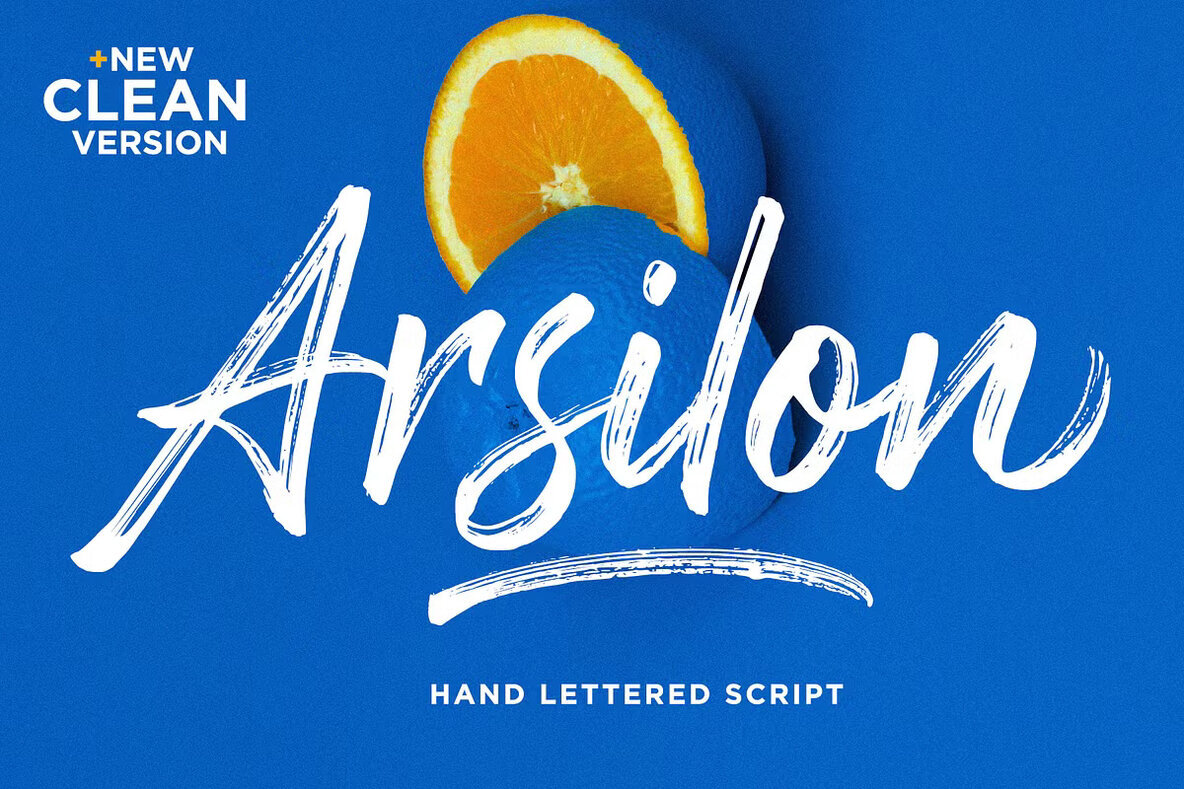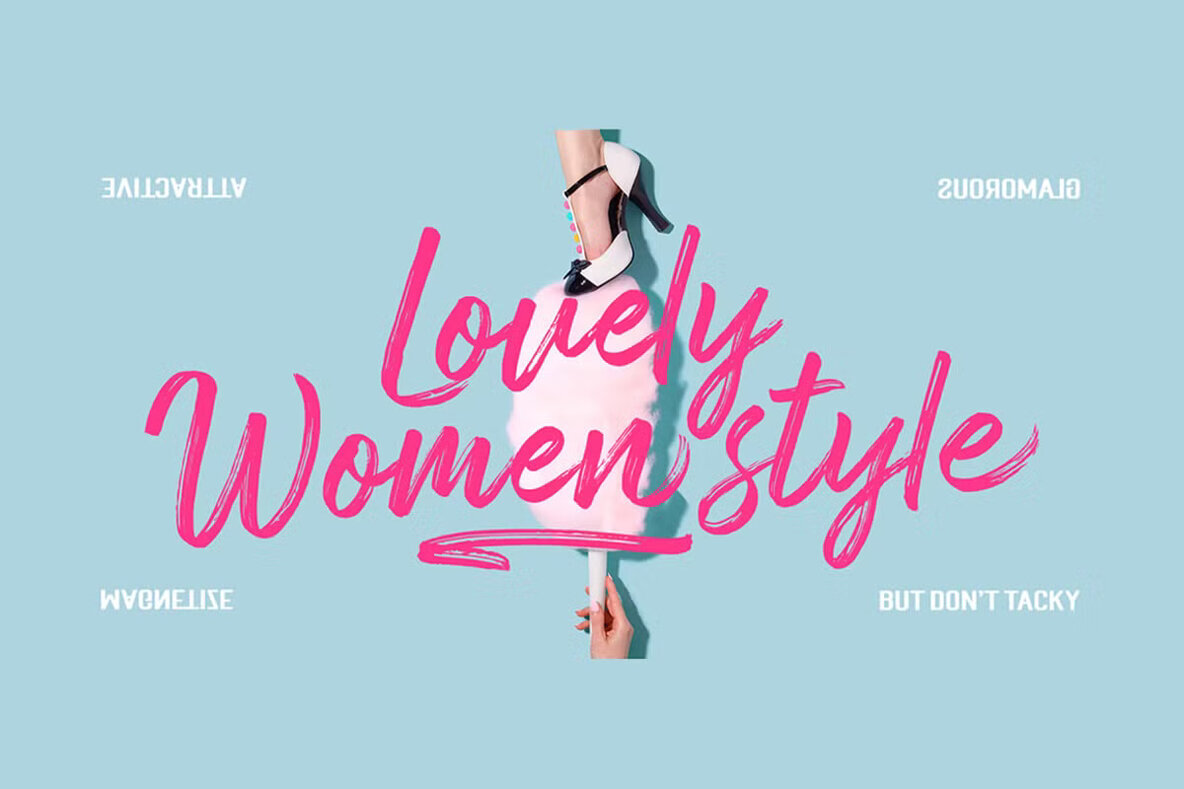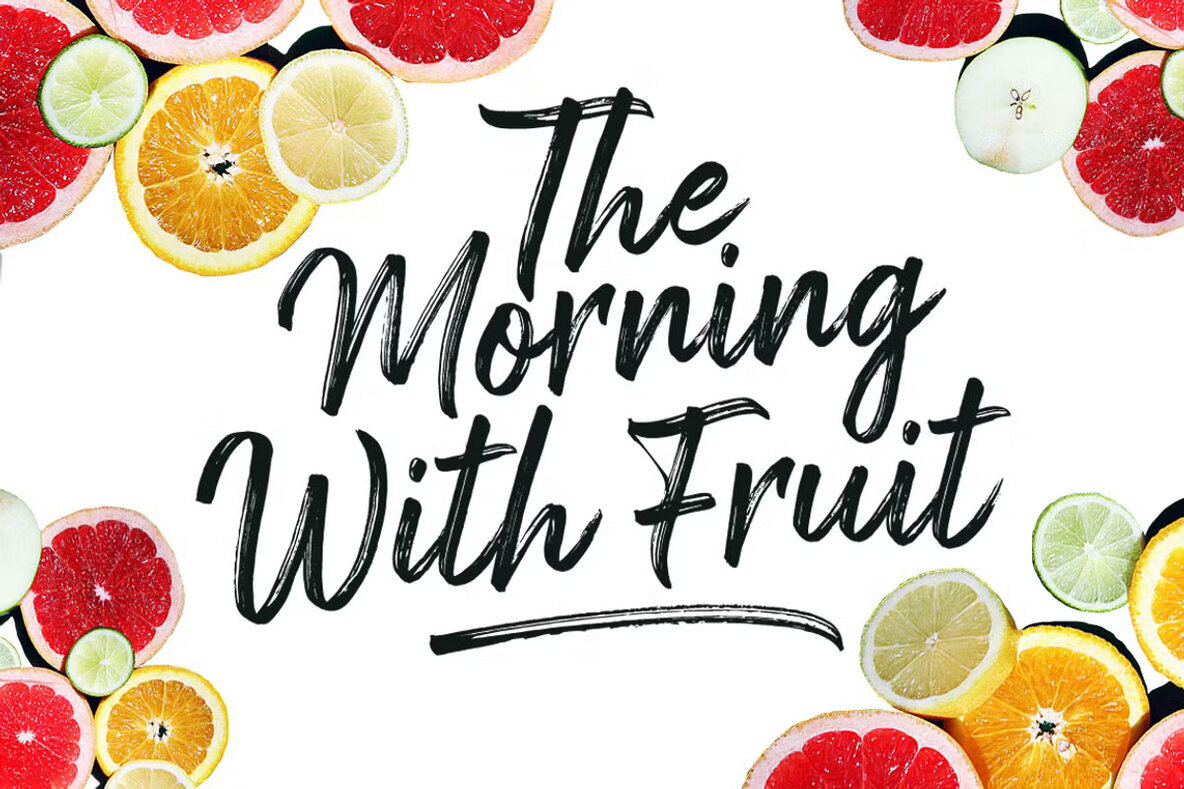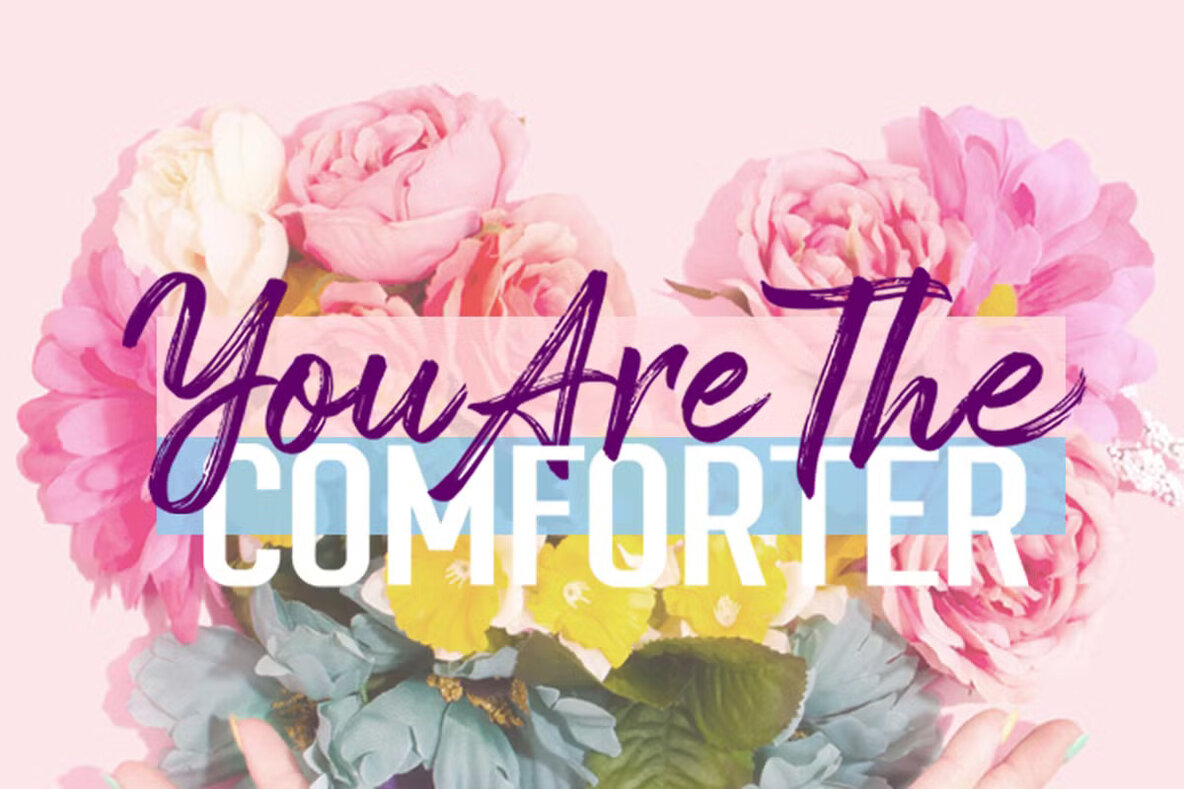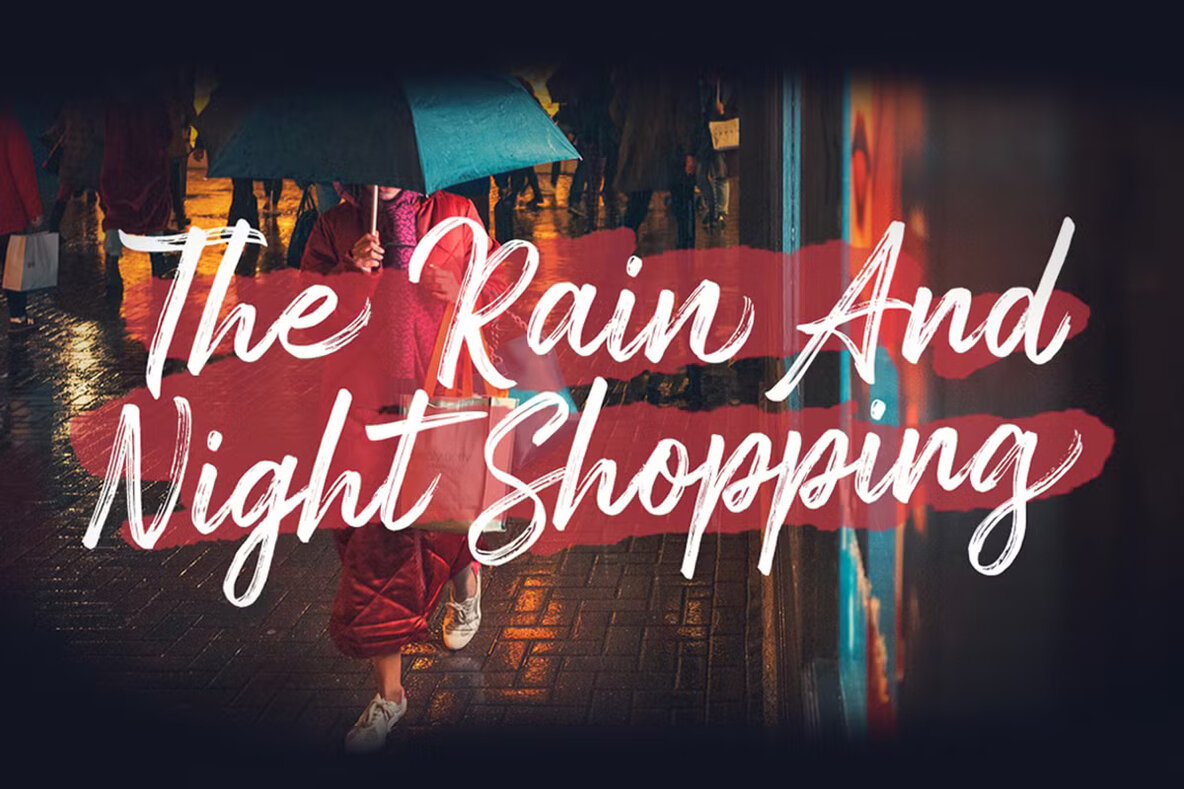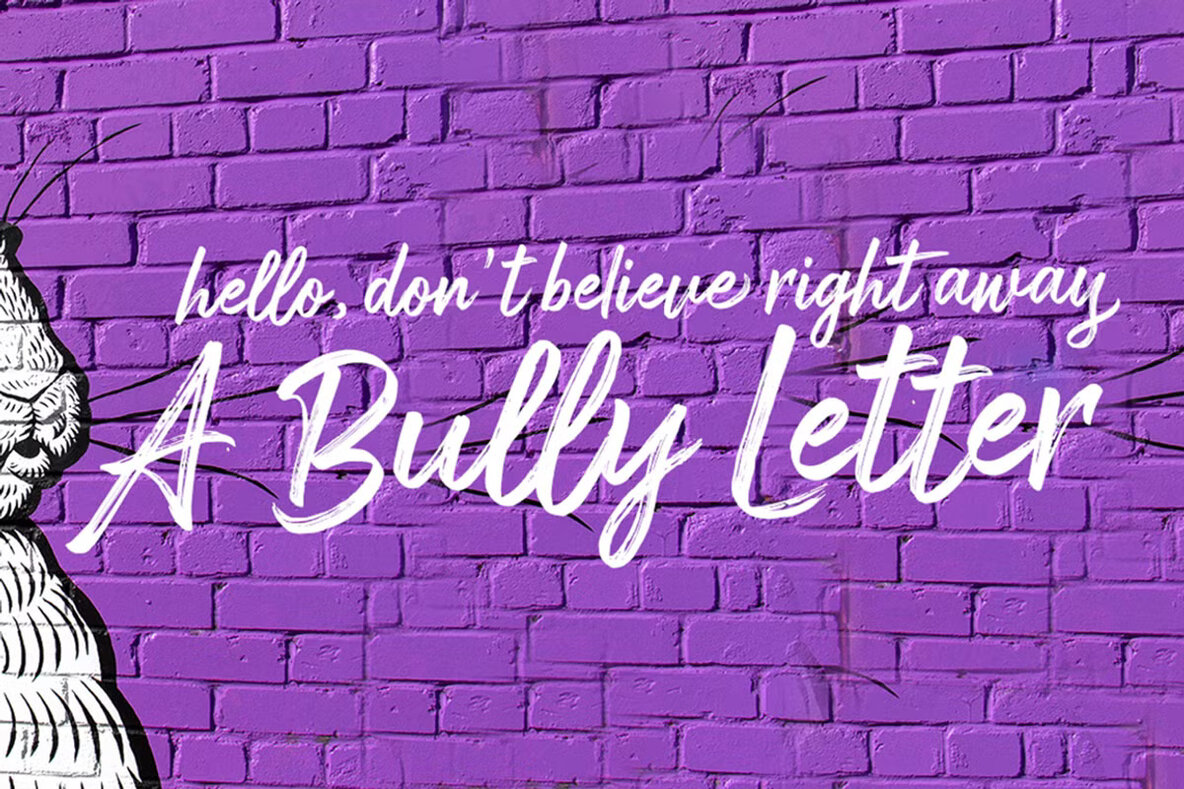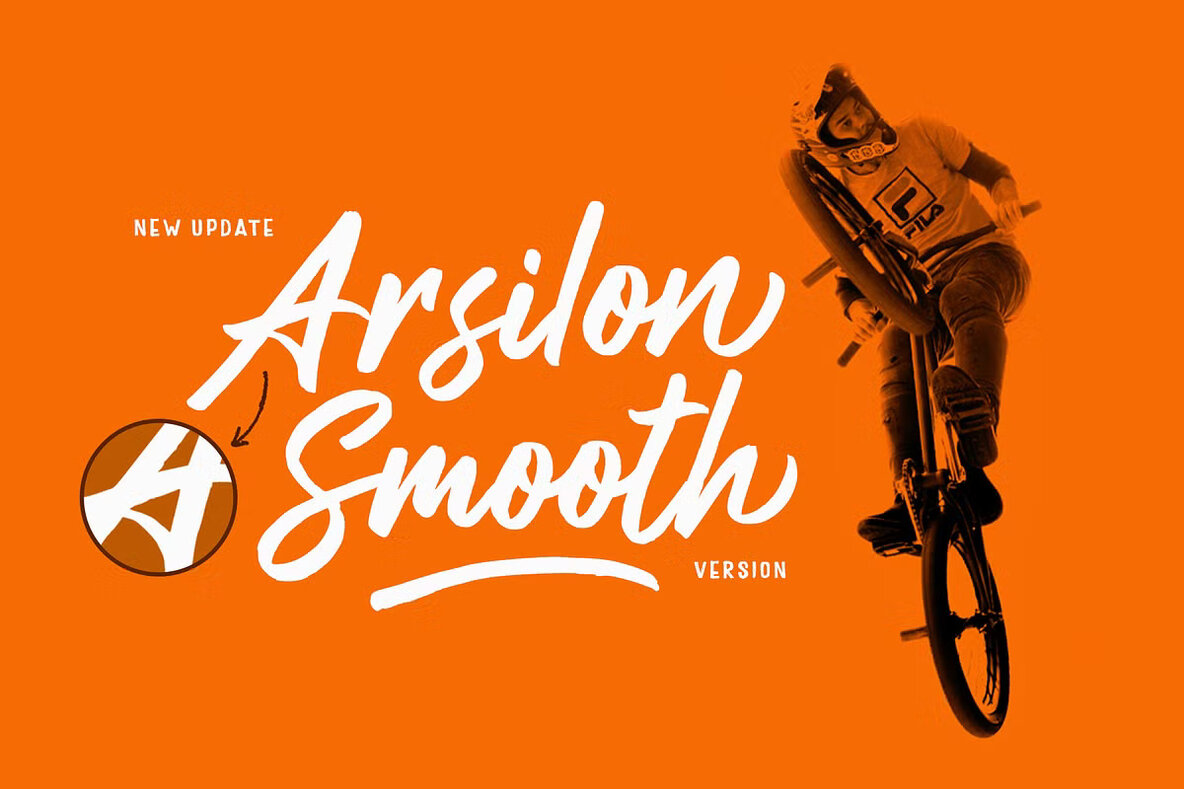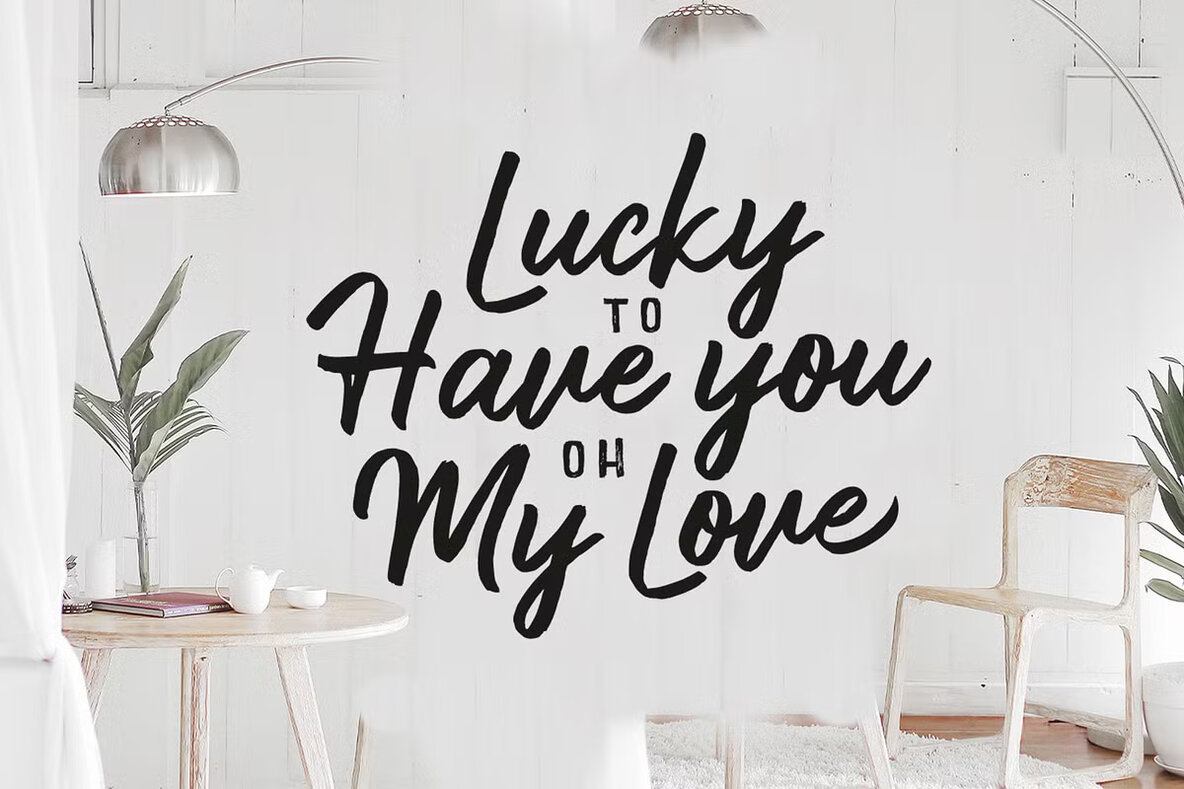
Arsilon Font
Arsilon brings a touch of contemporary style to any project with its textured brush strokes. This handmade font features natural underscores, alternatives, and ligatures, adding visual interest and versatility. Perfect for title design, it seamlessly complements clothing, invitations, book titles, stationery, quotes, branding, logos, greeting cards, t-shirts, packaging, and posters.Arsilon: Textured Brush Font for Dynamic Designs